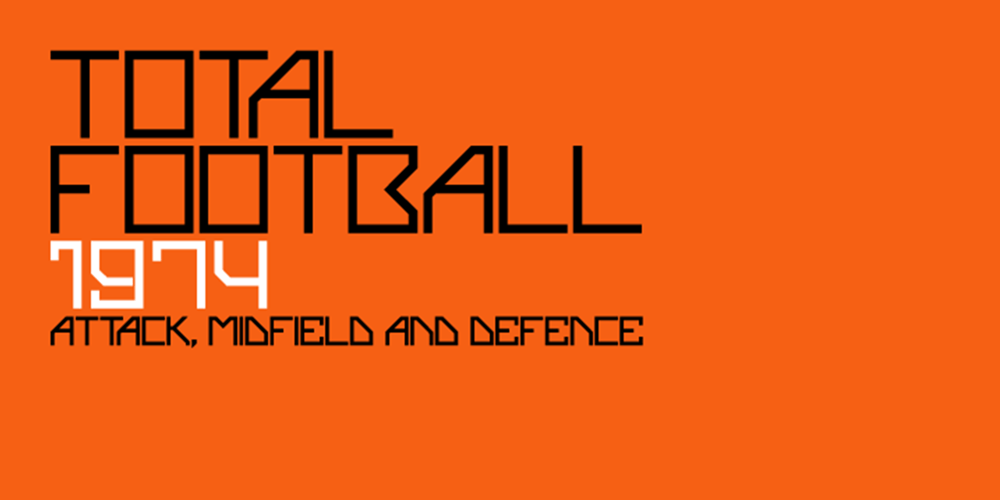
VanBerger
VanBerger font
VanBerger Font Family was designed by Jonathan Hill and published by The Northern Block. VanBerger contains 6 styles and family package options. A geometric san serif typeface influenced by Theo Van Doesburg and the De Stijl movement.